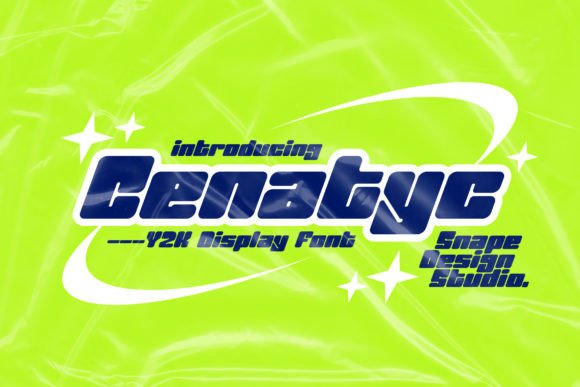
Cenatyc Font: The Ultimate Futuristic Display Font for Modern Projects
In the world of typography, fonts play a crucial role in conveying the tone and aesthetic of a project. With the ever-evolving design landscape, it’s essential to stay ahead of the curve with fresh and innovative fonts. One such font that has been making waves in the design community is Cenatyc Font. In this article, we’ll dive into the world of Cenatyc, exploring its unique features, inspirations, and uses.
What is Cenatyc Font?
Cenatyc Font is a futuristic display font that has been heavily influenced by the Y2K design era. Characterized by its sleek, bold, and edgy design, Cenatyc is perfect for projects that require a touch of modernity and sophistication. The font’s unique design elements are inspired by the music and pop culture of the Y2K era, making it an excellent choice for projects that require a nostalgic yet futuristic feel.
Key Features of Cenatyc Font
- Futuristic Design: Cenatyc’s sleek and modern design makes it perfect for projects that require a cutting-edge aesthetic.
- Y2K Inspiration: The font’s unique design elements are inspired by the music and pop culture of the Y2K era, adding a touch of nostalgia to your projects.
- Display Font: Cenatyc is a display font, making it perfect for headlines, titles, and other attention-grabbing elements.
- Versatile: Cenatyc can be used for a wide range of projects, including technology, digital, space galaxy themes, movies, documentaries, films, logos, posters, games, book covers, and more.
Inspirations and Influences
Cenatyc Font draws inspiration from the Y2K design era, a time when technology and pop culture were rapidly evolving. The font’s design elements are influenced by the futuristic and retro-futuristic aesthetic of the era, characterized by bold, bright, and edgy designs. The font’s creators aimed to capture the essence of this era, blending nostalgia with modernity to create a unique and captivating font.
The Y2K Design Era: A Brief Overview
The Y2K design era, also known as the Millennium era, was a time of rapid technological advancements and creative experimentation. Characterized by bold, bright, and futuristic designs, the era saw the rise of digital art, music, and pop culture. The Y2K aesthetic was marked by:
- Neon Colors: Bright, neon colors were a hallmark of the Y2K design era, adding a touch of futurism to designs.
- Bold Typography: Bold, sans-serif fonts were popular during the Y2K era, often used in conjunction with bright colors and futuristic graphics.
- Retro-Futurism: The Y2K era saw a resurgence of retro-futuristic designs, inspired by classic sci-fi movies, books, and video games.
Uses and Applications
Cenatyc Font is a versatile font that can be used for a wide range of projects. Its futuristic design and Y2K inspiration make it perfect for:
Technology and Digital Projects
Cenatyc’s modern design makes it an excellent choice for technology and digital projects, such as:
- Web Design: Use Cenatyc to create modern and attention-grabbing website headers, titles, and buttons.
- Mobile Apps: Cenatyc’s bold design makes it perfect for mobile app icons, logos, and UI elements.
- Software: Use Cenatyc to create futuristic and modern software interfaces, including titles, buttons, and menus.
Creative Projects
Cenatyc’s unique design also makes it suitable for creative projects, such as:
- Movies and Documentaries: Use Cenatyc to create bold and attention-grabbing titles, logos, and posters.
- Films and TV Shows: Cenatyc’s futuristic design makes it perfect for film and TV show titles, credits, and promotional materials.
- Games: Use Cenatyc to create modern and futuristic game titles, logos, and UI elements.
- Book Covers: Cenatyc’s bold design makes it suitable for book covers, especially for science fiction, technology, and futuristic-themed books.
Cenatyc Font is a unique and versatile font that combines futuristic design with Y2K inspiration. Its bold, edgy, and modern aesthetic makes it perfect for a wide range of projects, from technology and digital projects to creative endeavors like movies, documentaries, and games. With Cenatyc, you can add a touch of modernity and sophistication to your projects, making them stand out in a crowded design landscape.